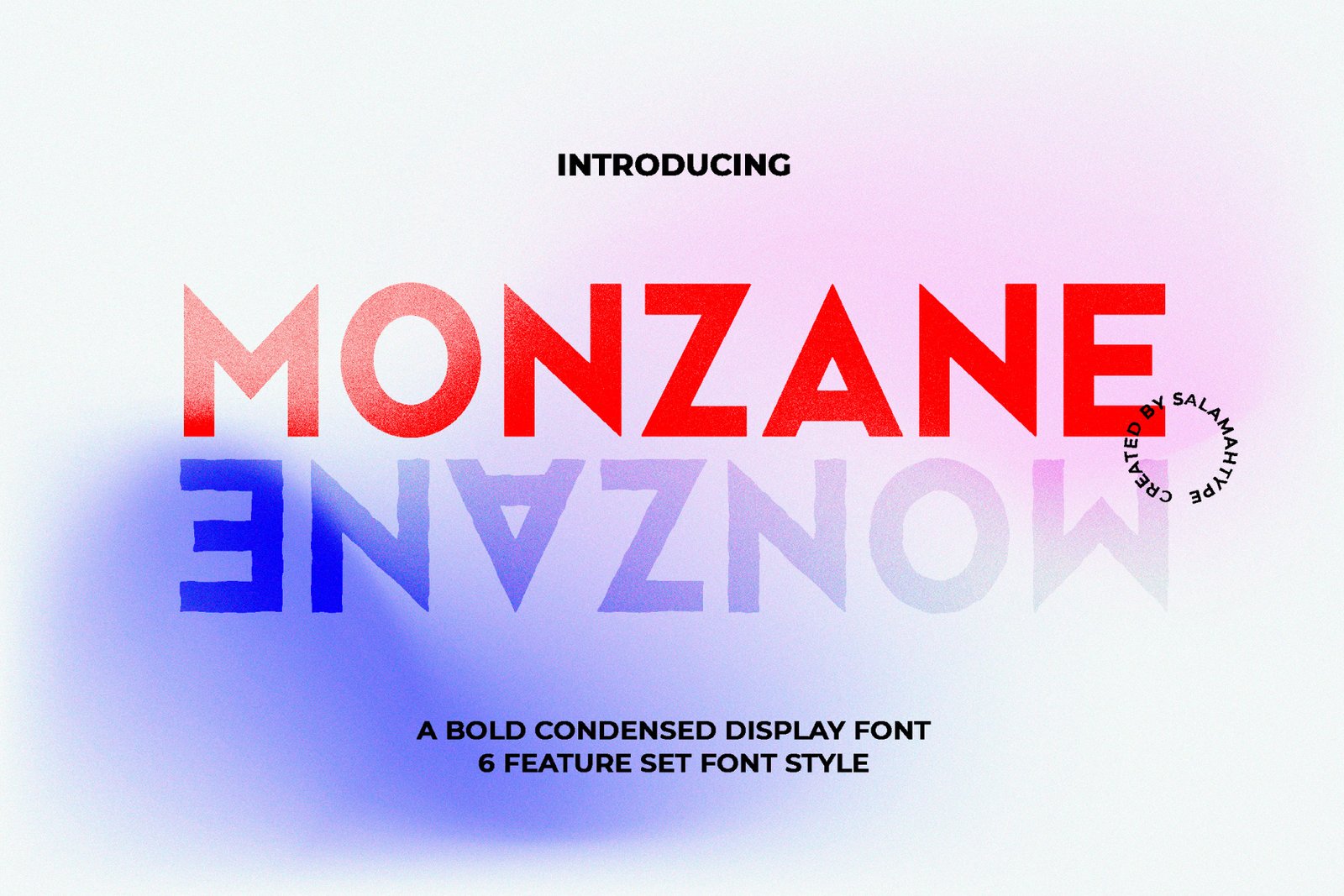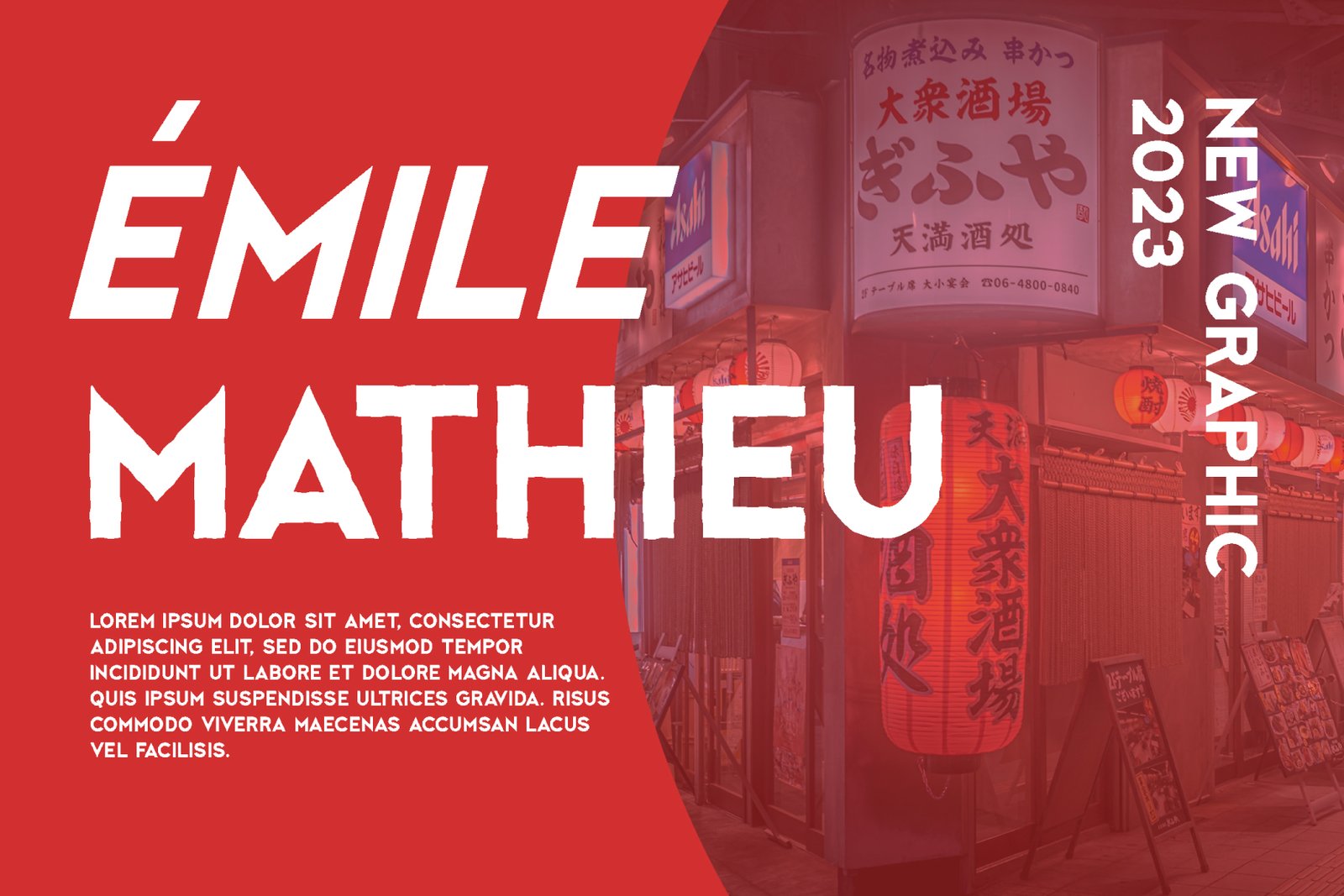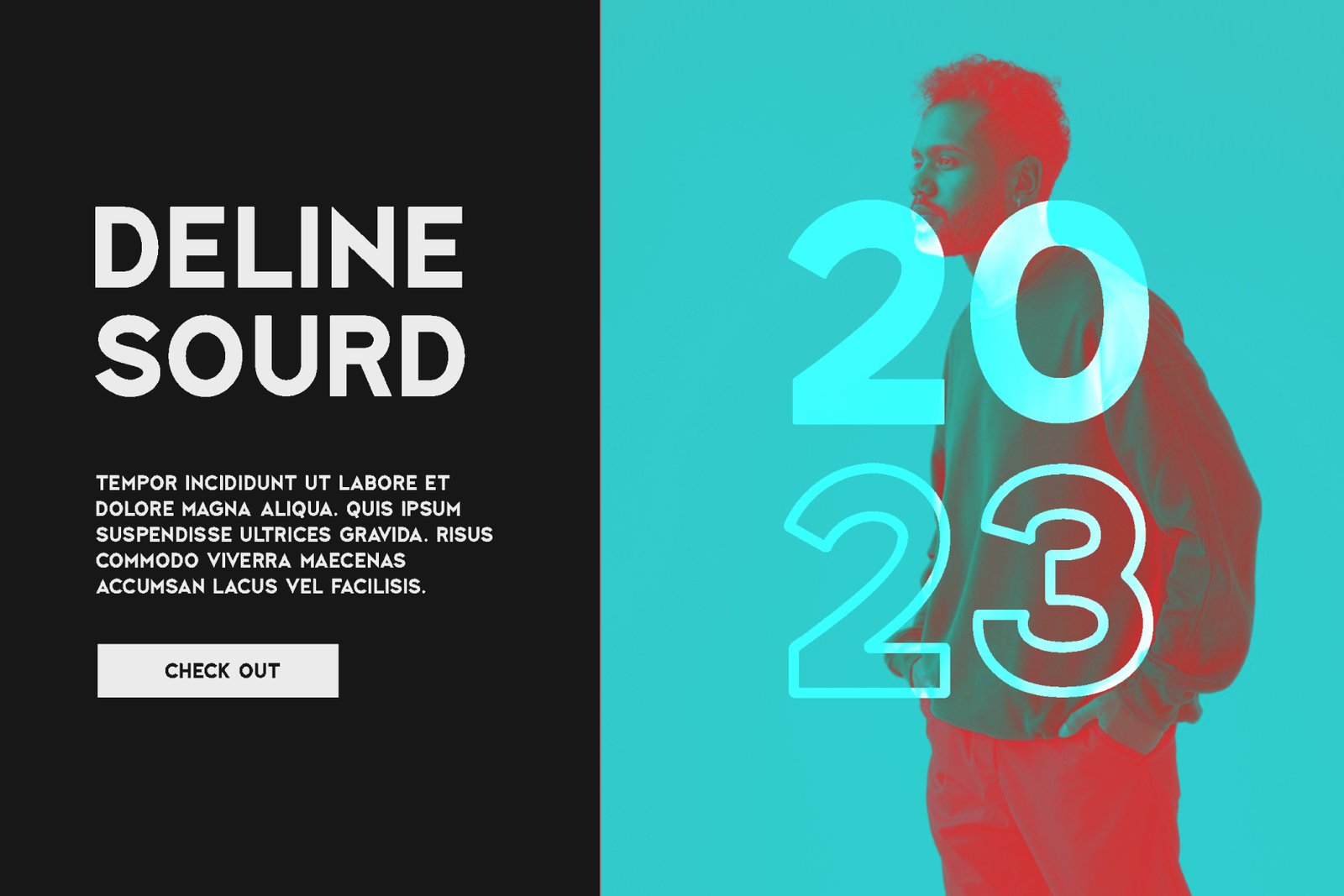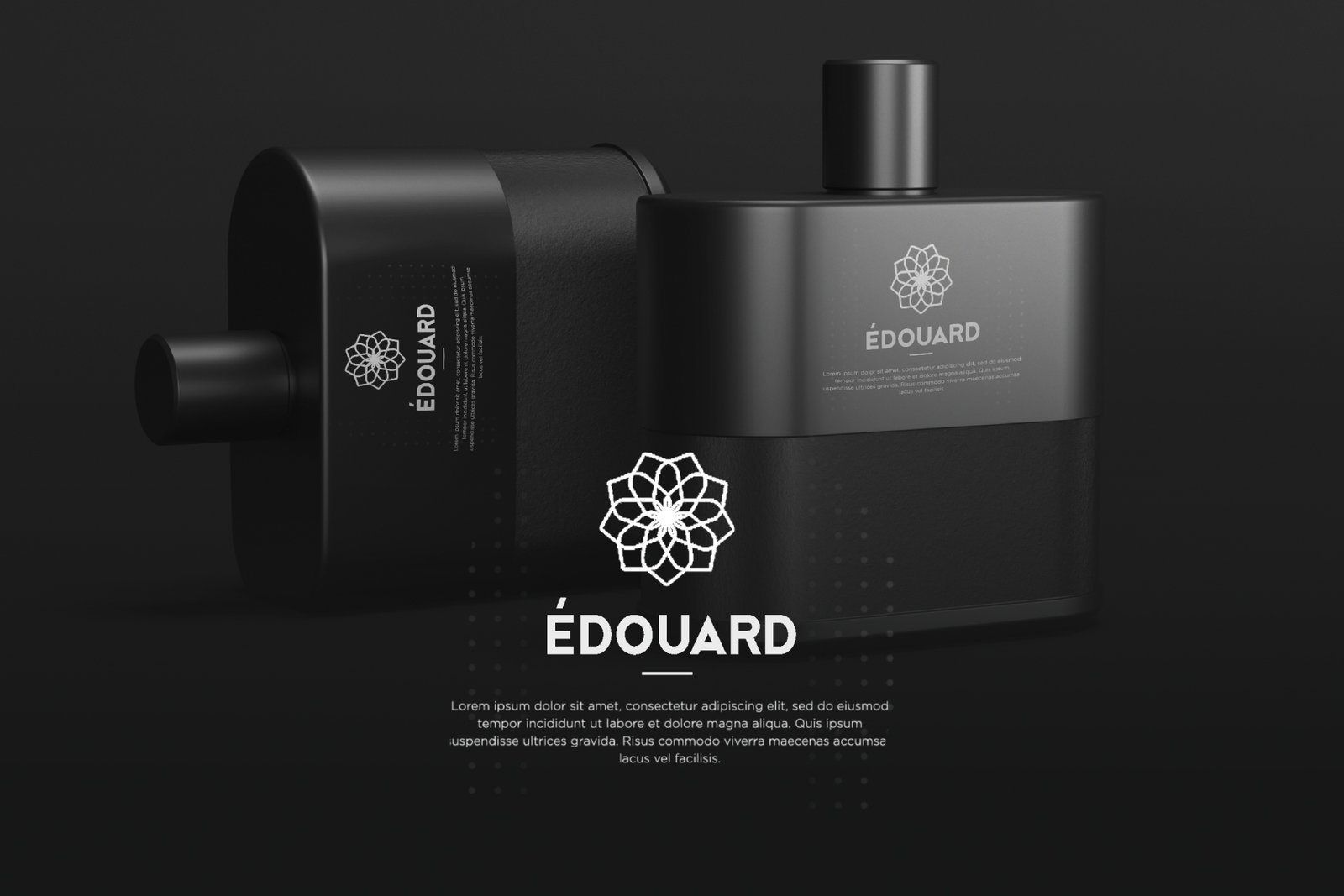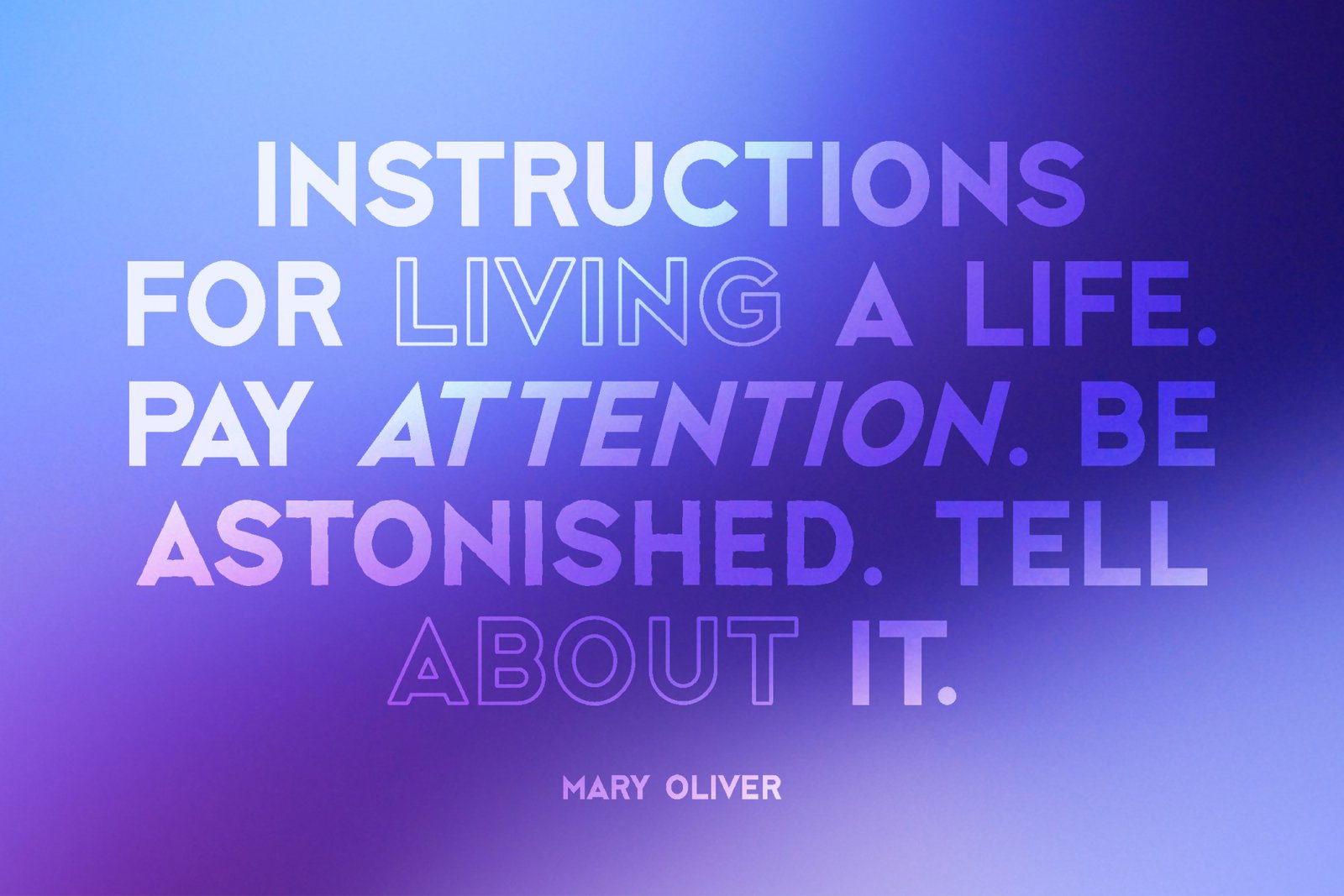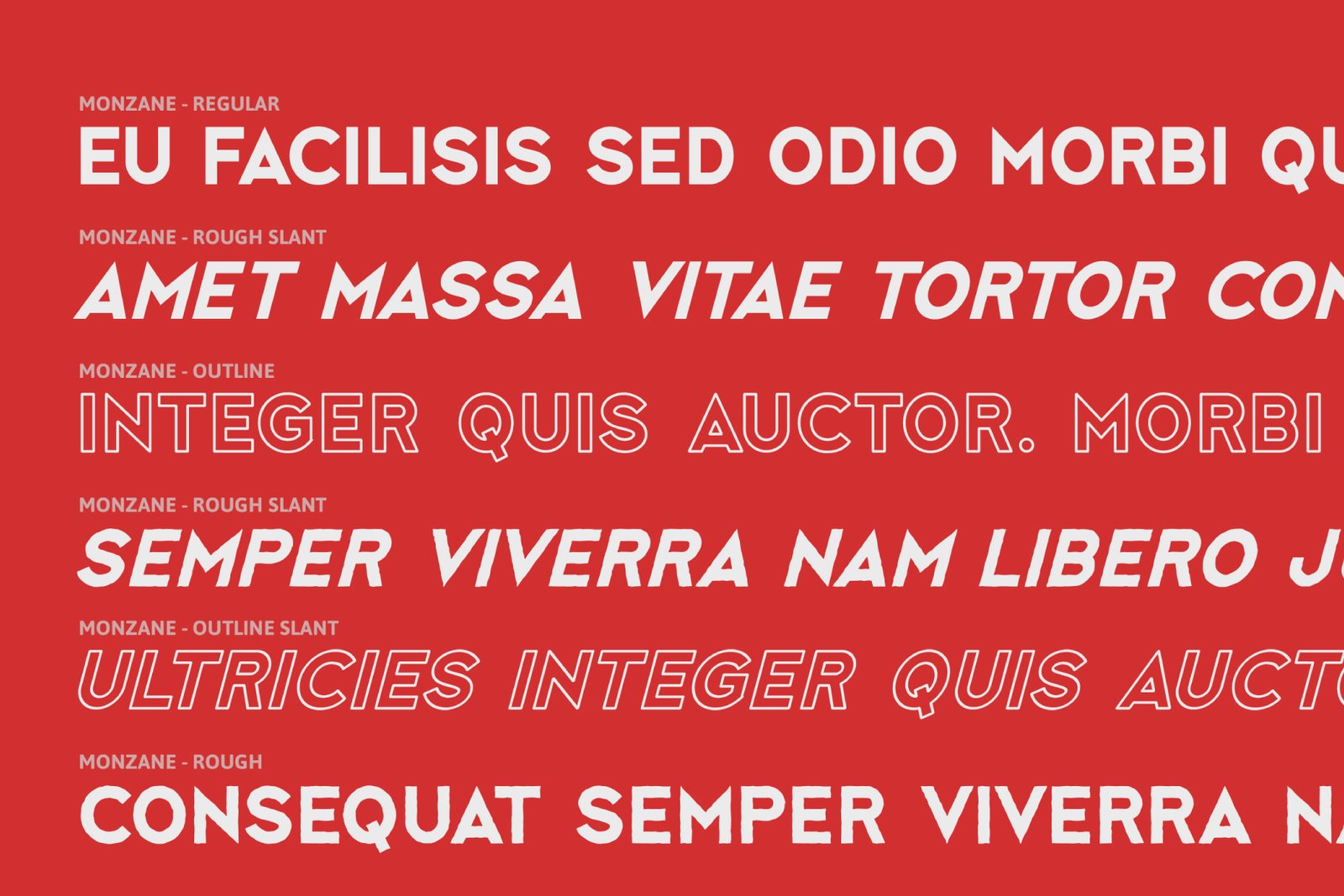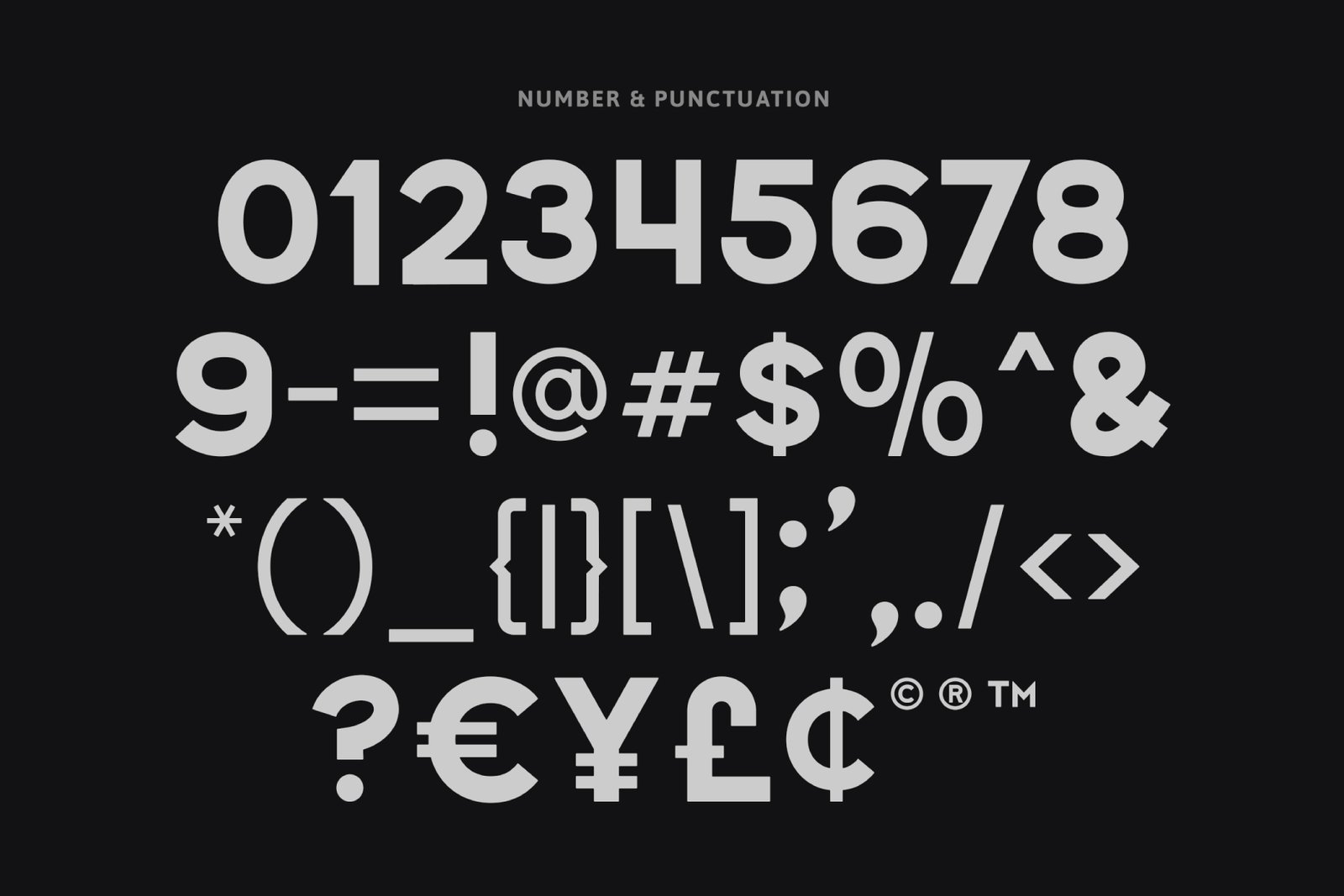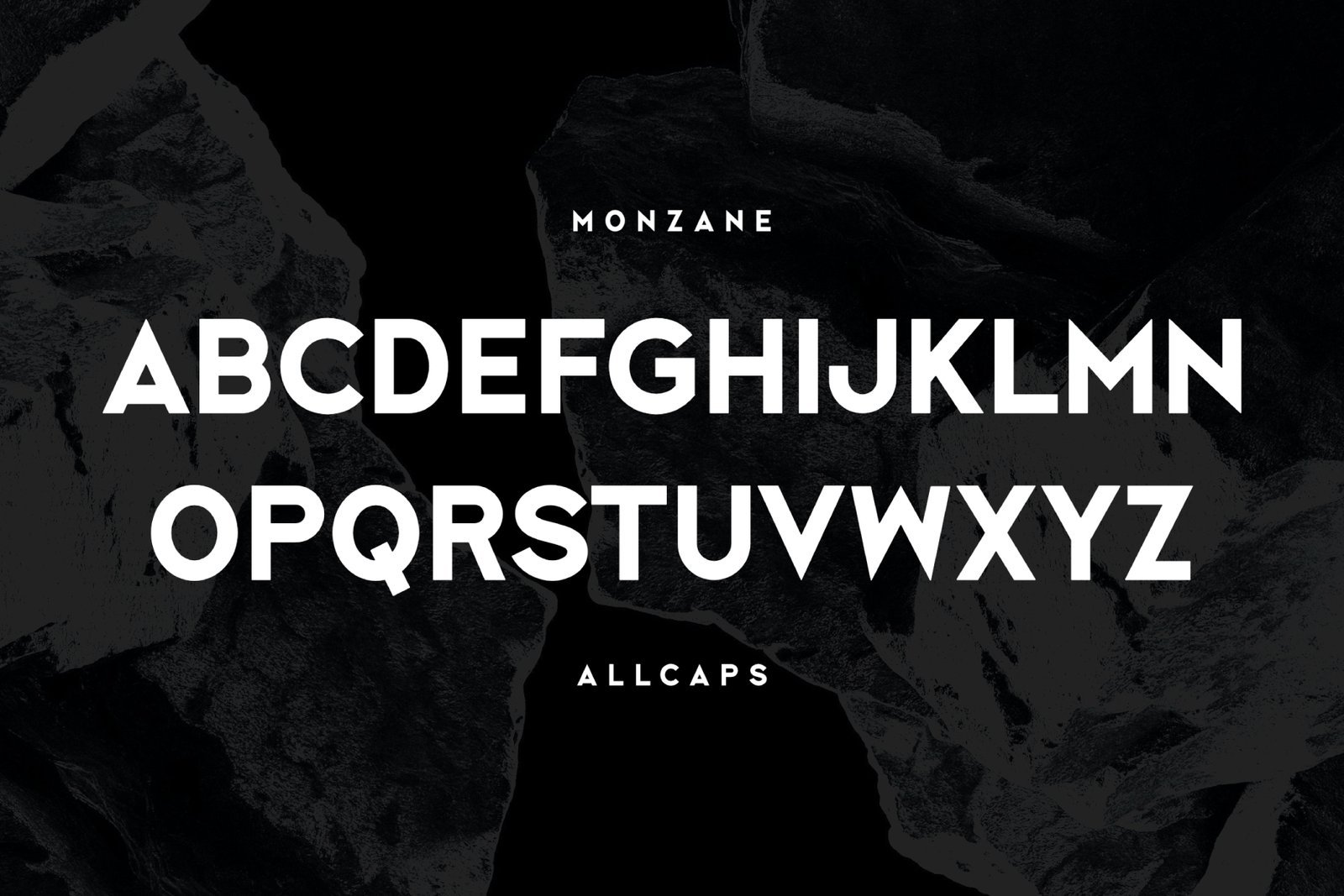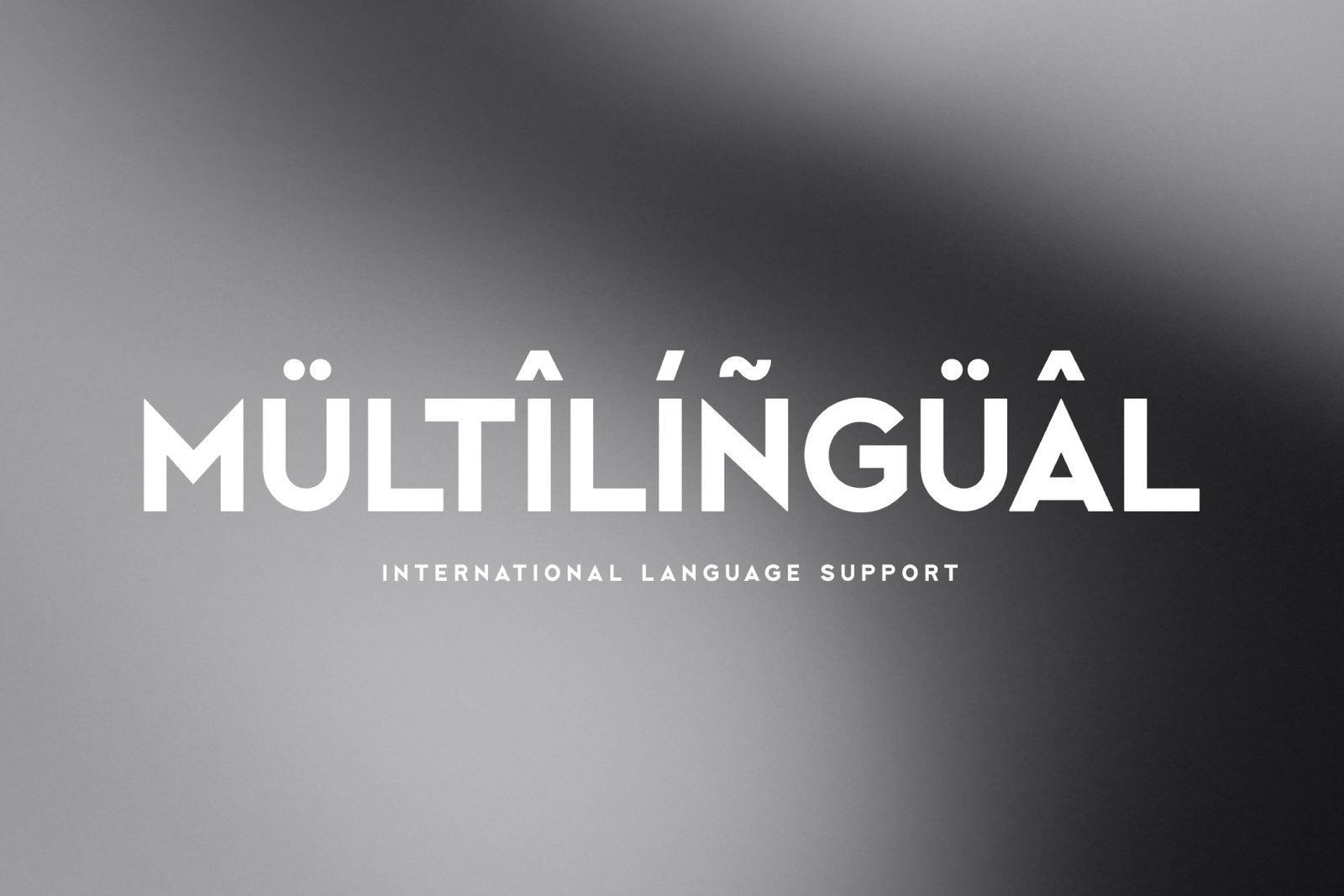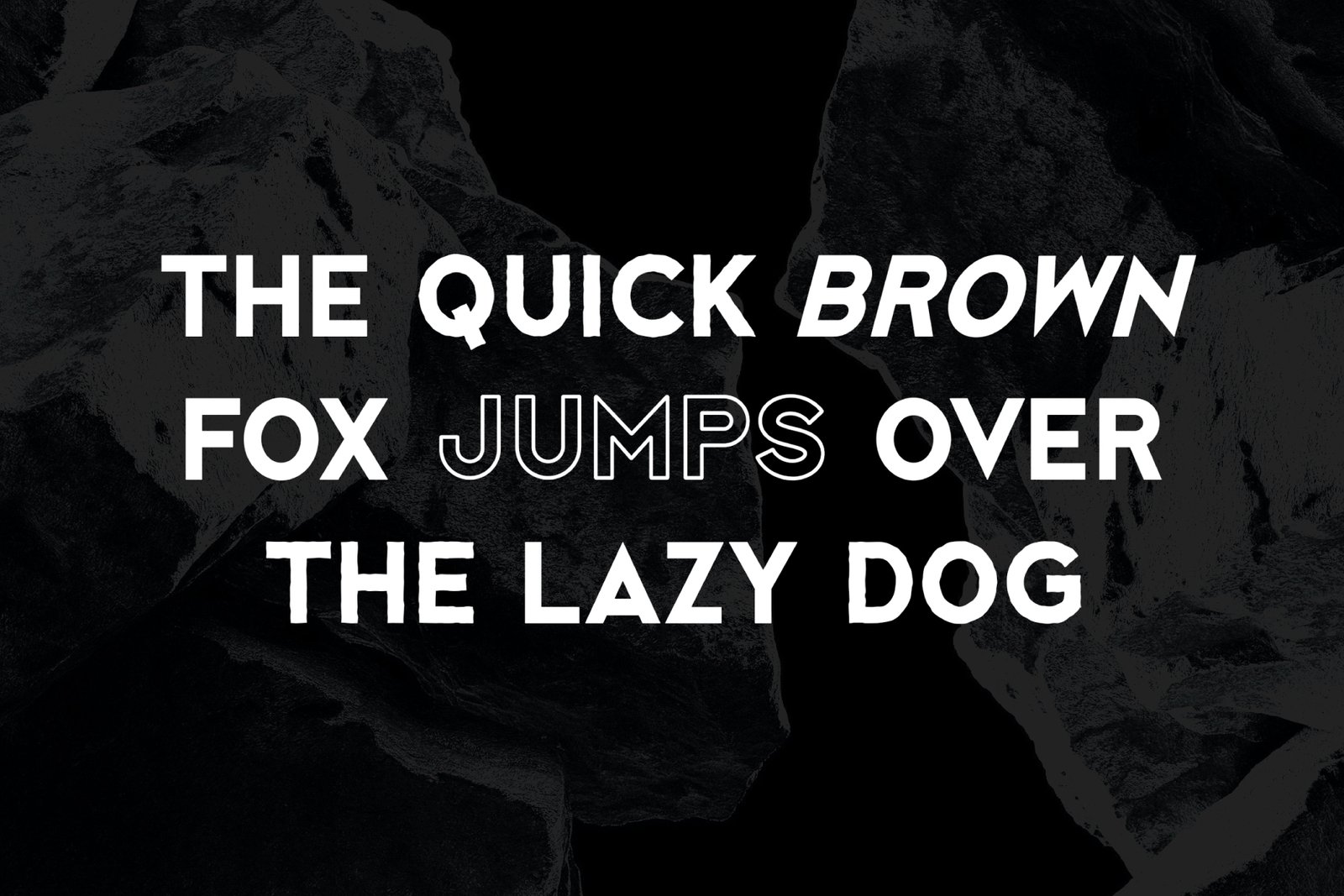
MONZANE is a visually strong and impactful font style consisting only of capital letters. It is characterized by its bold and eye-catching appearance and can be used in a variety of design applications, including advertising, branding, news headlines, and graphic design projects.
• All caps with 6 styles (clean, rough, outline, and slant)
• Punctuation and symbols
• Multilingual support